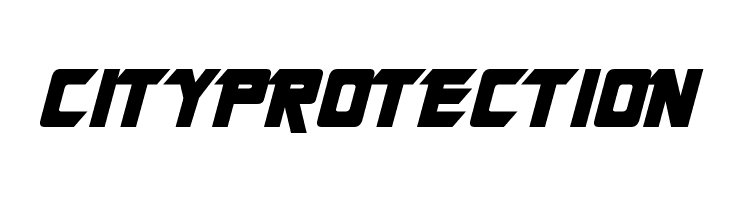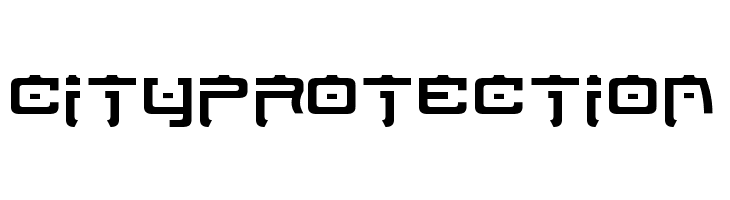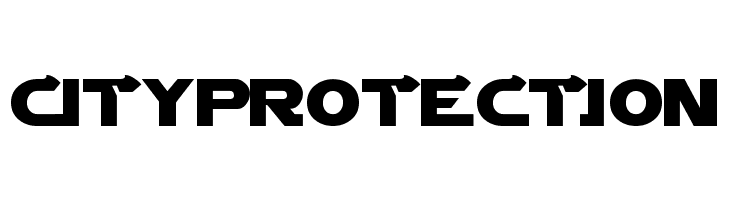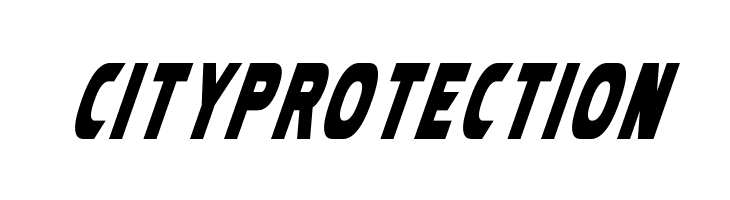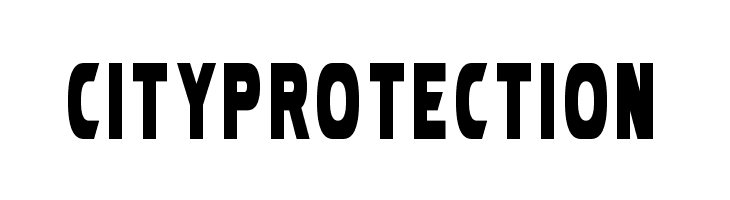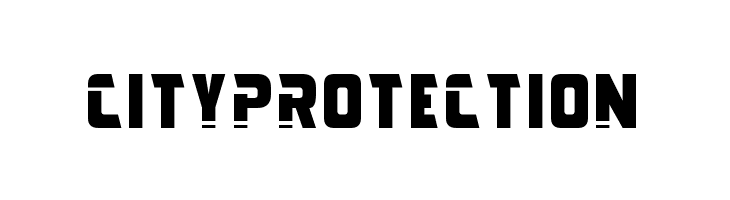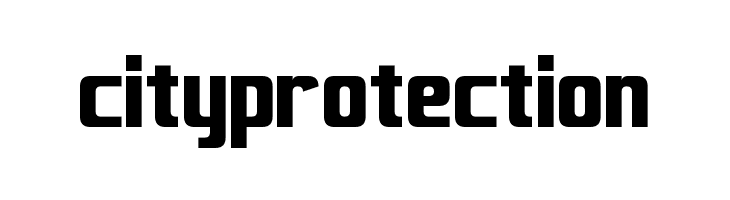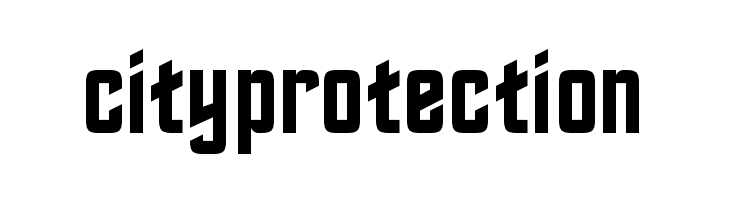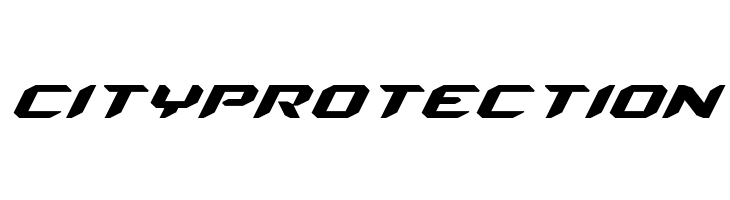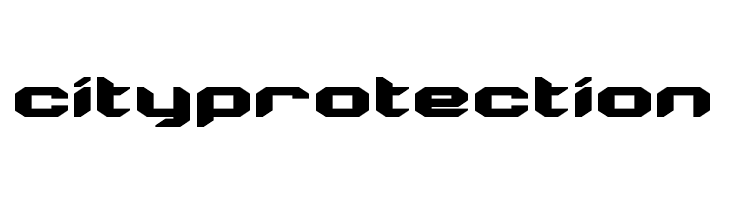
A futuristic, tech-inspired font with geometric and angular shapes.
A bold, angular, and oblique font with a futuristic and dynamic style.
A bold, angular font with a futuristic and geometric design.
A bold, futuristic font with geometric shapes and sharp angles.
A bold, geometric font with strong, block-like characters and rounded edges.
A bold, futuristic font with sharp, angular lines and a geometric structure.
A bold, futuristic font with sharp angles and an oblique slant.
A bold, futuristic font with angular, geometric shapes and a modern, tech-inspired style.
A modern, geometric, and condensed font with clean lines.
A bold, modern font with geometric lines and minimal contrast.
A bold, geometric font with strong lines and a modern aesthetic.
A bold and decorative font with intricate curves and sharp edges.
A bold, artistic font with dynamic strokes and a modern, playful style.
A bold, geometric font with Art Deco influences, ideal for vintage-modern projects.
A bold, geometric font with angular, industrial letterforms.
A geometric, angular font representing a fictional alien language.
A bold, modern sans-serif font with clean lines and a slightly condensed style.
A pixelated, monospaced font with a retro digital aesthetic.
A futuristic, geometric font with rounded edges and uniform strokes.
A bold, edgy font with a prehistoric, hand-drawn style.
A bold, angular font with a three-dimensional, futuristic style.
A bold, angular font with a futuristic and edgy design.
A bold, oblique font with a futuristic and dynamic style.
A bold, dynamic font with sharp, angular lines and an artistic flair.
A bold, geometric, and oblique font with sharp angles and a modern style.
A bold, oblique font with a dynamic and angular design.
A bold, geometric font with angular lines and a modern, blocky appearance.
A sleek, modern oblique font with a dynamic and professional appearance.